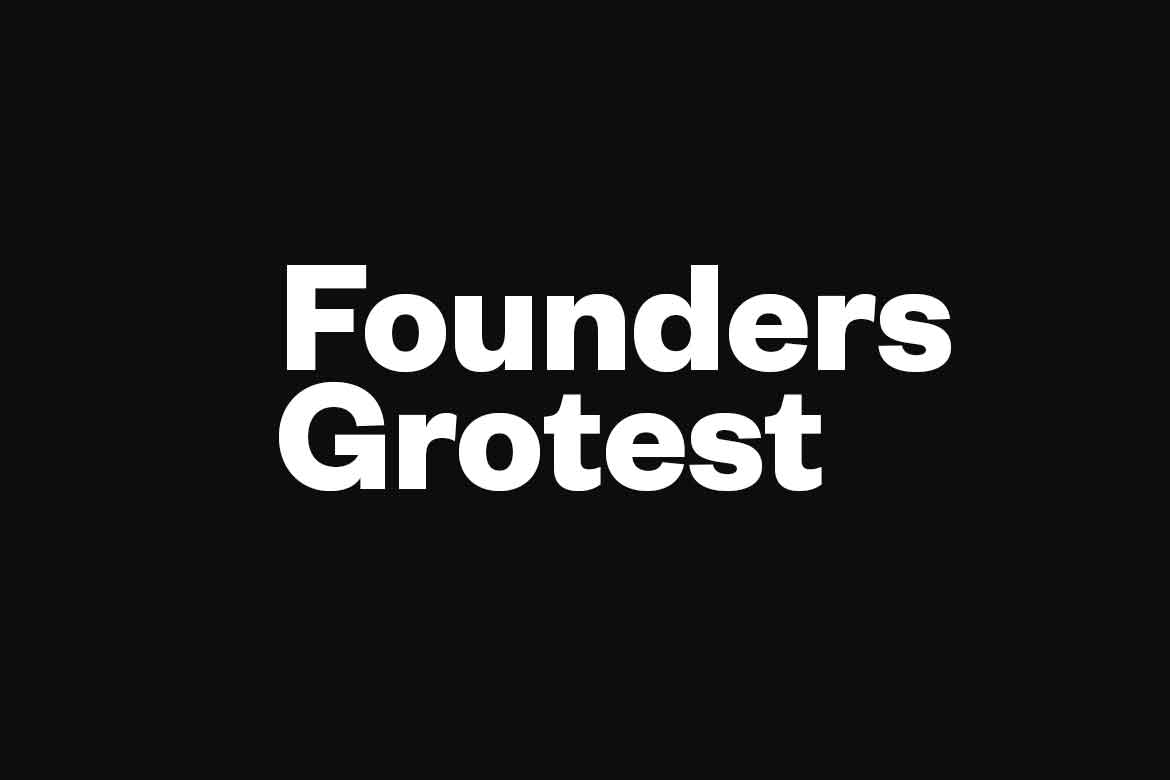
Founders Grotesk Font Family is a grotesque sans-serif typeface designed by Kris Sowersby of the New Zealand-based Klim Type Foundry. The design was influenced by classic grotesques from the early twentieth century. The c of Founders Grotesk has a very narrow aperture which is one of its distinguishing characteristics.